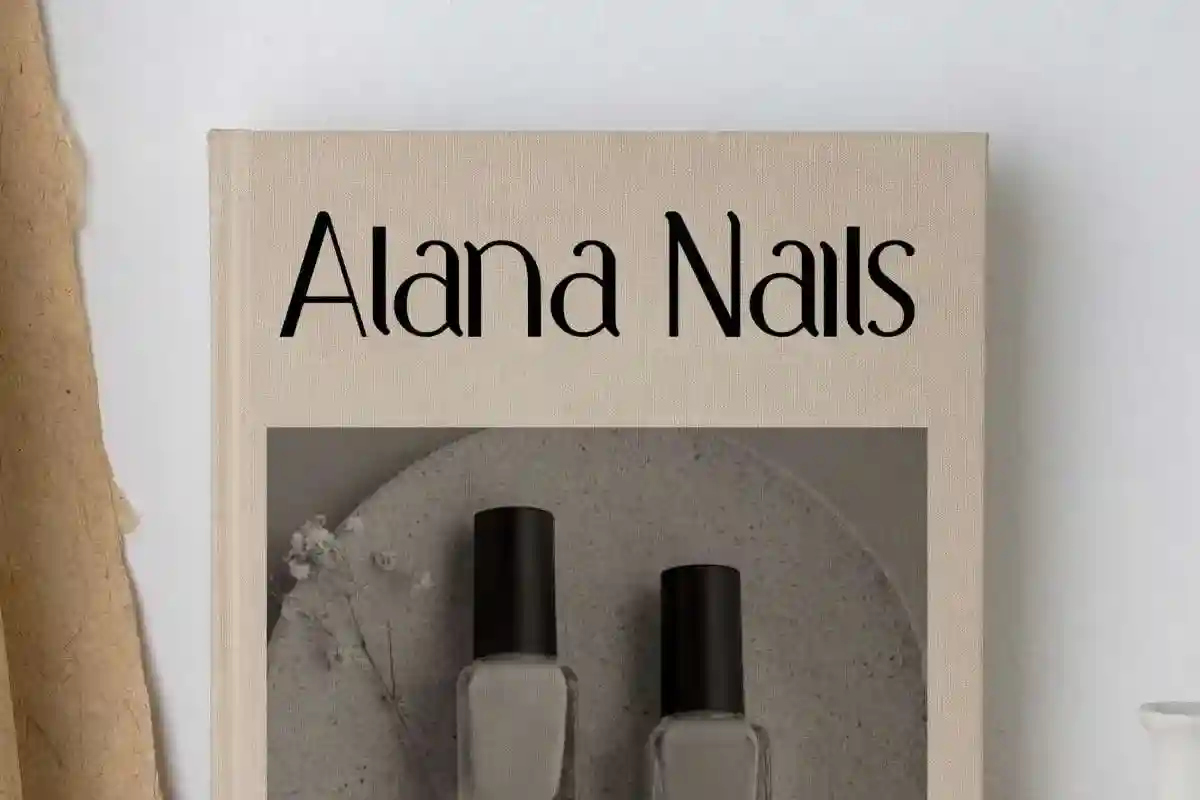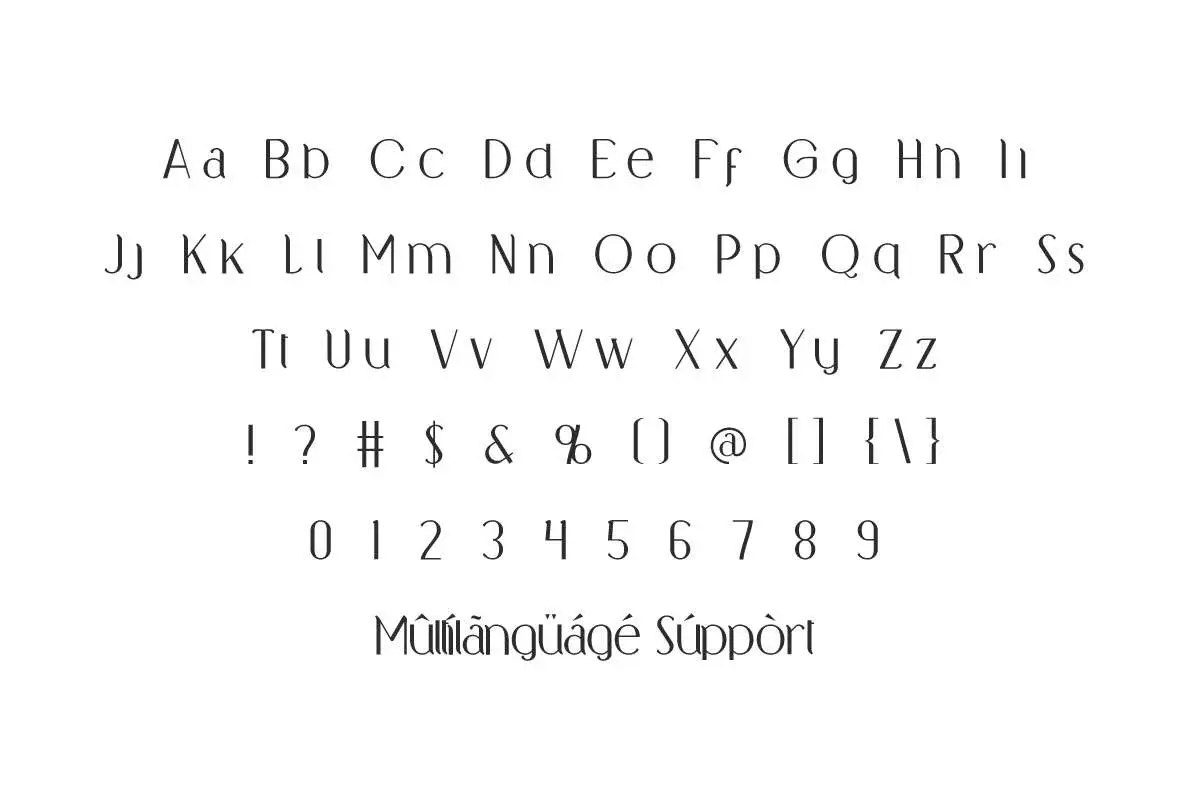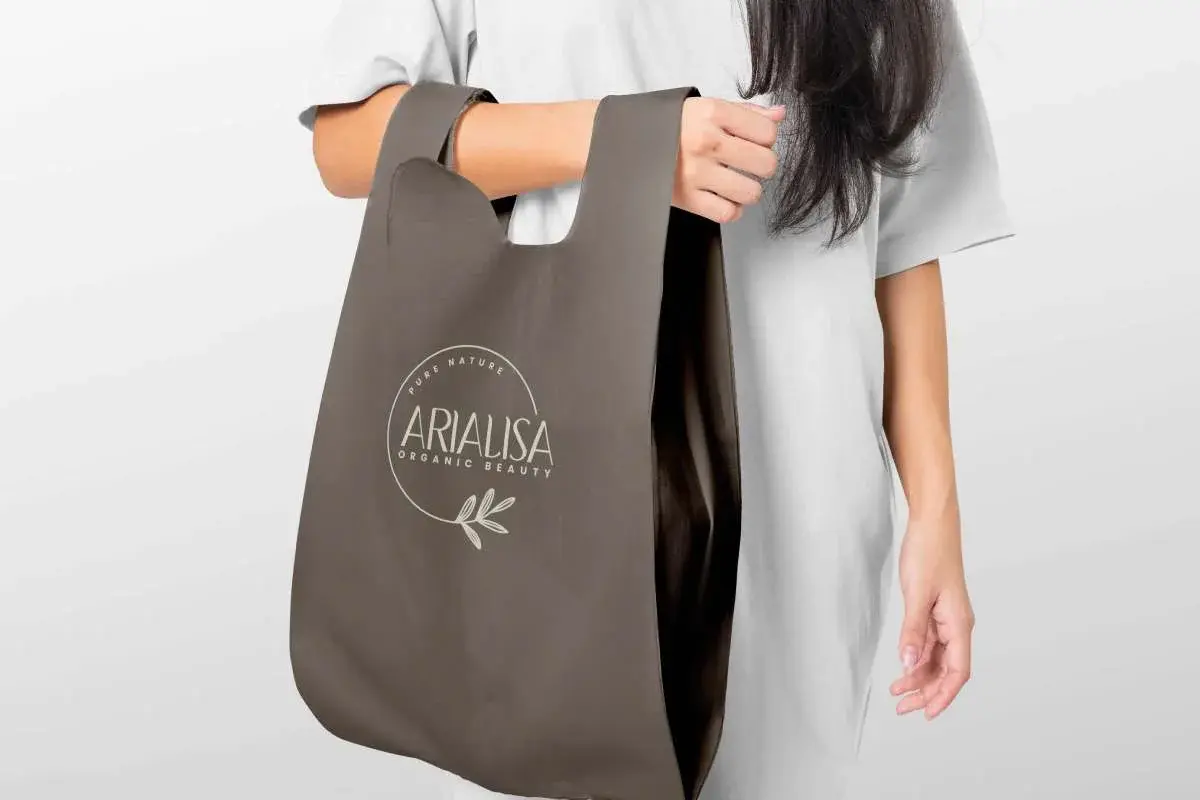
Arialisa Font
Arialisa Font is a beautiful classic and casual sans serif display font. It looks so aesthetic and versatile to complement your creativity.
Arialisa Font is a beautiful classic and casual sans serif display font. It looks to exude a natural elegance in enhancing your business, such as architect, beauty clinic, boutique, café, clothing brand, coffee place, construction, cosmetic, earthenware, event organizer, fashion, florist, furniture, handicraft, interior design, jewelry, nail care, photography, printing, publishing, real estate, restaurant, skincare, spa salon, writer, etc.
Arialisa Font includes full set of Uppercase and Lowercase Basic Characters, Number, Punctuation, and Symbol. It will convey a modern elegance to your design, such as apps, billboard, blogs, body text, brand logo, brochure, cover, flyer, headline, invitation, label, mockup design, packaging design, poster, quote, screen print, signage, stationery, sticker, title, watermark, website, and many more.